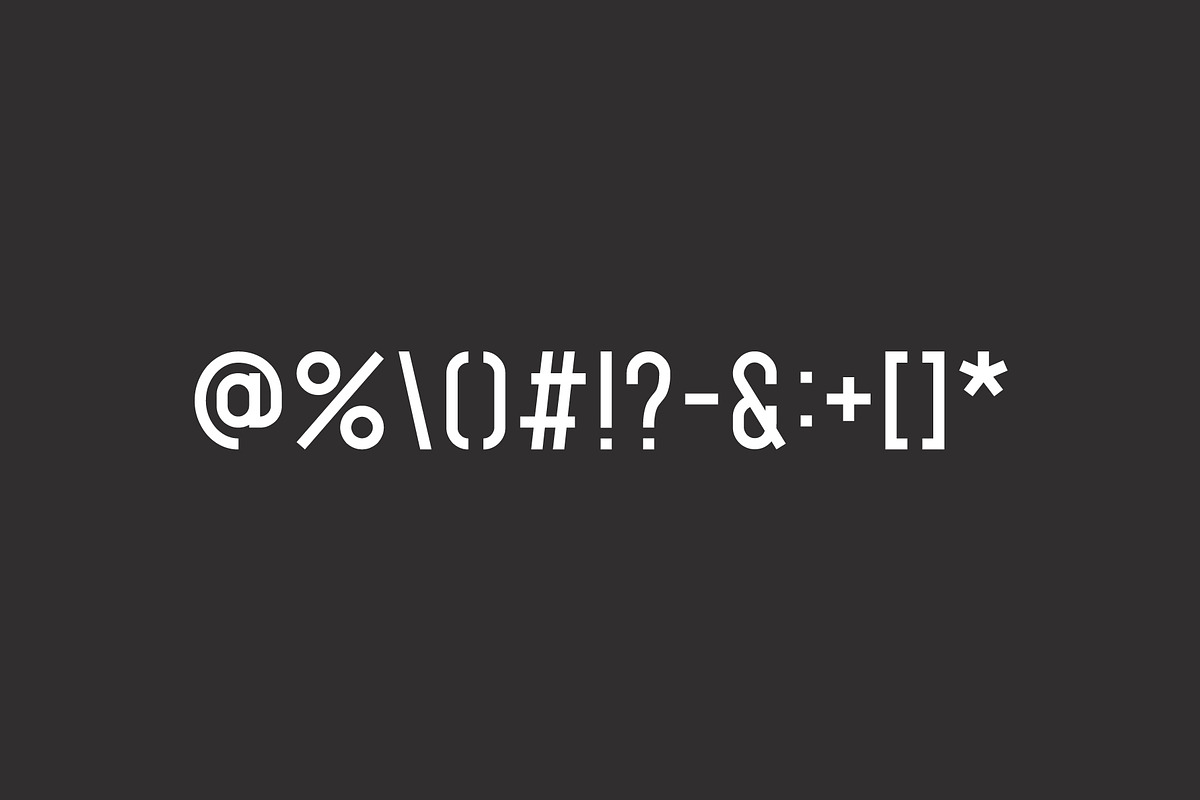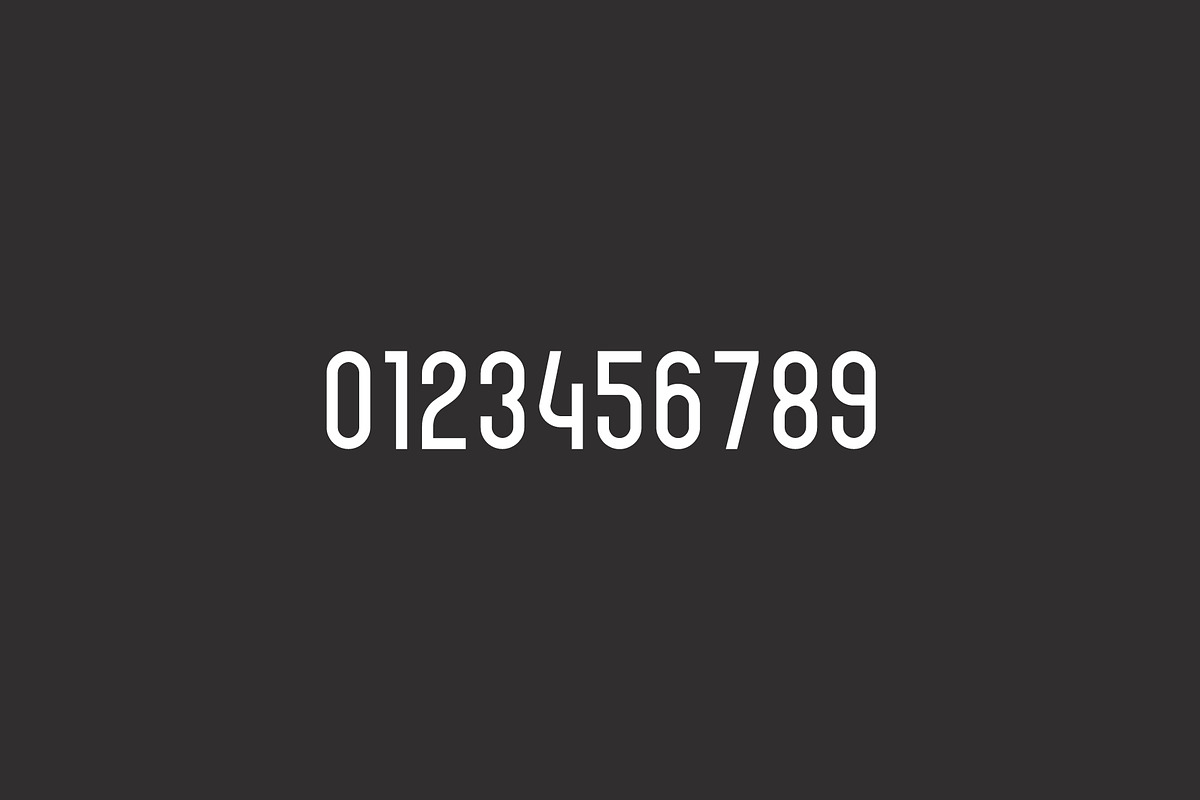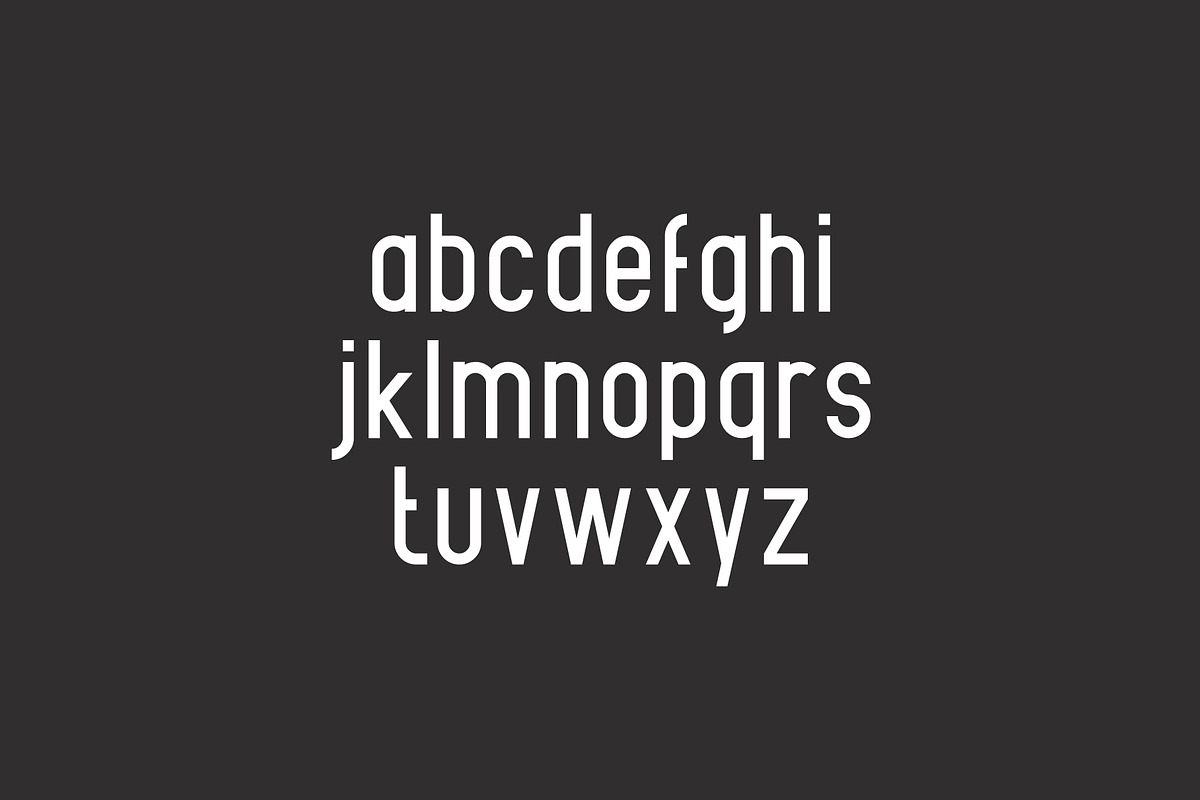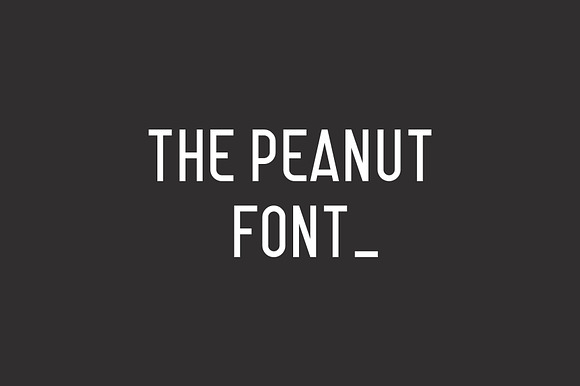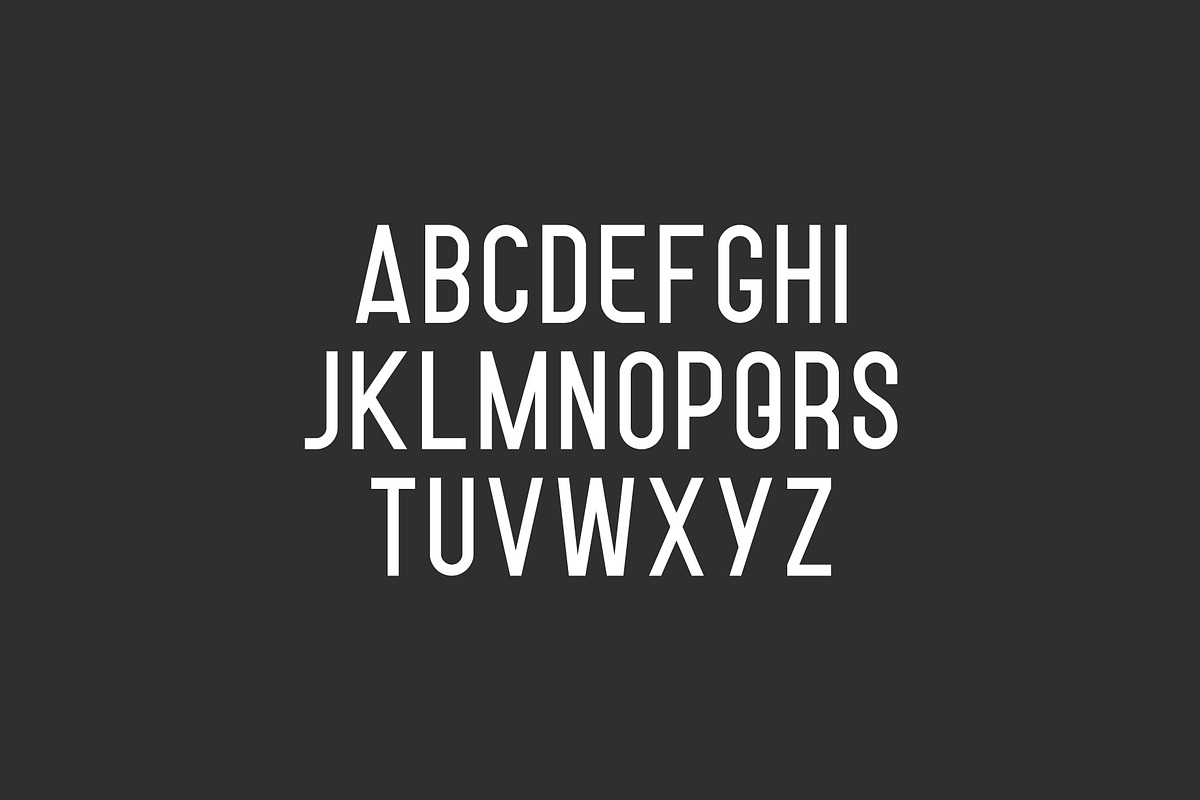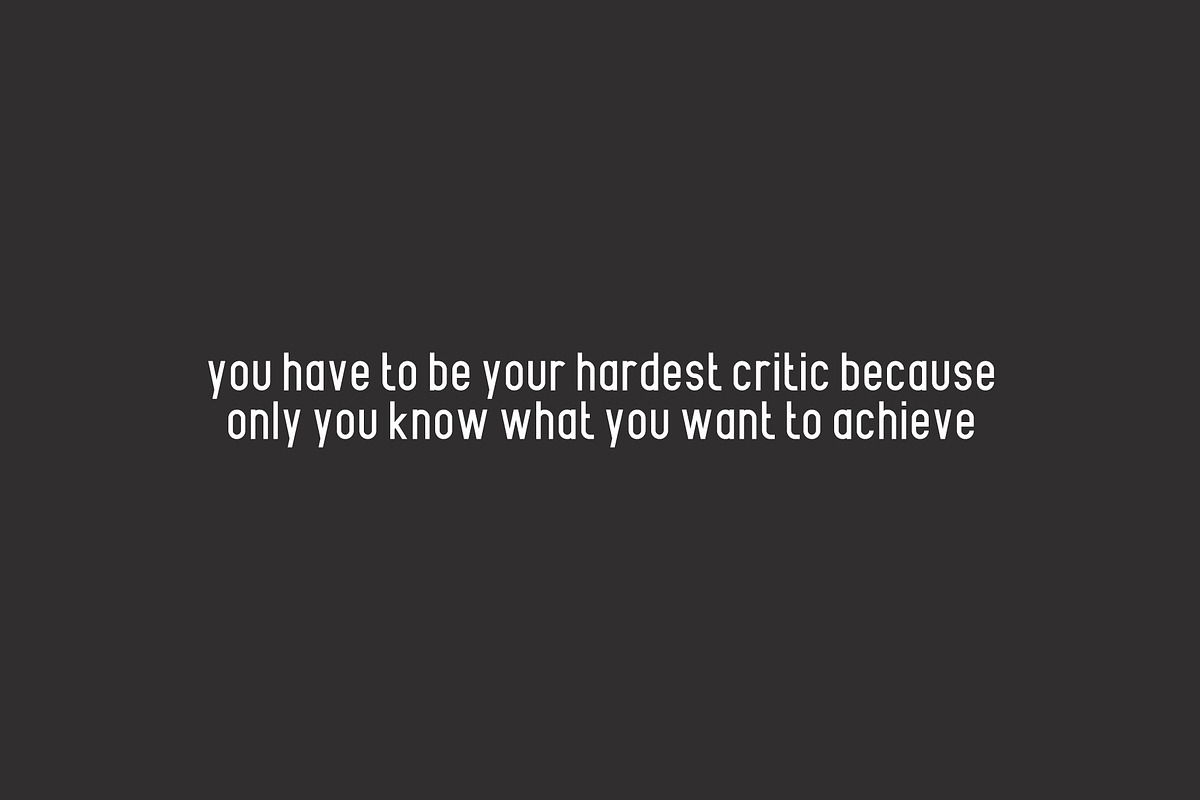
The Peanut Font
a tight sans serif font by sven pels
Why The Peanut Font is worth a look
The Peanut Font by Sven Pels fits naturally into Branding, posters, packaging, typography.